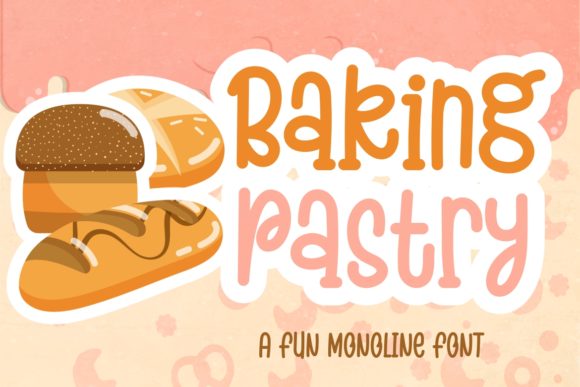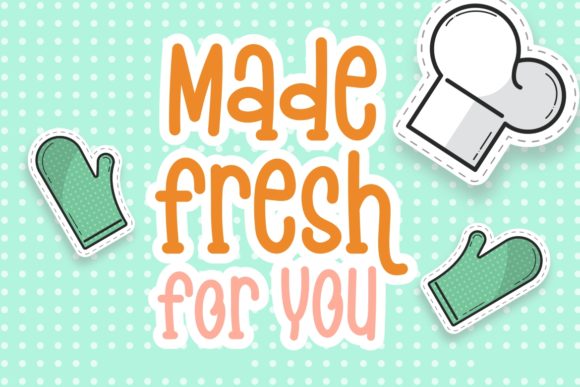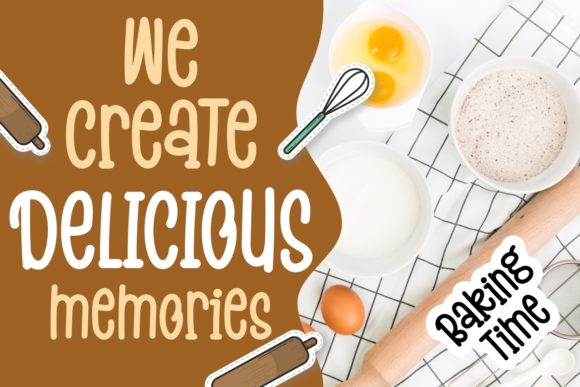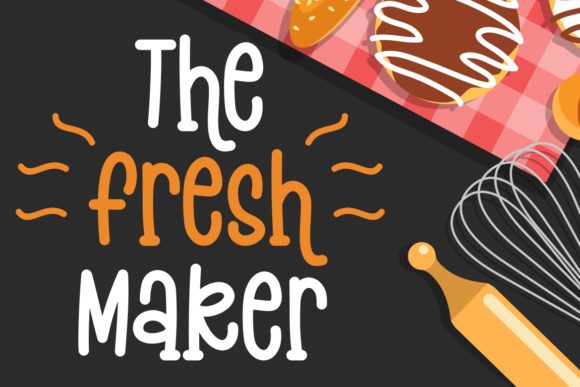
Baking Pastry Font
About the Baking Pastry Font
Elevate your designs with Baking Pastry Font, a font that combines sophistication with readability. Baking Pastry is a fun and cute handwritten font carefully created with a clean line. Fall in love with its authentic feel and use it to create gorgeous wedding invitations, beautiful stationary art, eye-catching social media posts, and cute greeting cards.
Its friendly, slightly informal style makes it ideal for projects requiring a touch of warmth and approachability, such as branding for bakeries, cafes, or children’s products. It also works well in short-form applications like logos, headlines, and social media graphics. However, its handwritten nature makes it less suitable for large bodies of text or UI elements where readability is paramount.
Consider pairing Baking Pastry with a clean sans-serif like Open Sans for a balanced contrast, or a more geometric sans-serif for a modern feel. A delicate serif like Lora could also add a touch of sophistication, while a playful script font would enhance its whimsical character.
Avoid using Baking Pastry for applications needing strong professionalism or legibility over longer passages. Its charm lies in its casual elegance, making it perfect for projects emphasizing personality and visual appeal rather than strict formality.
Baking Pastry Font Usage Examples
Baking Pastry Font Example